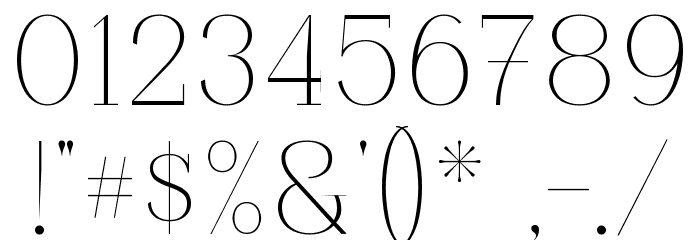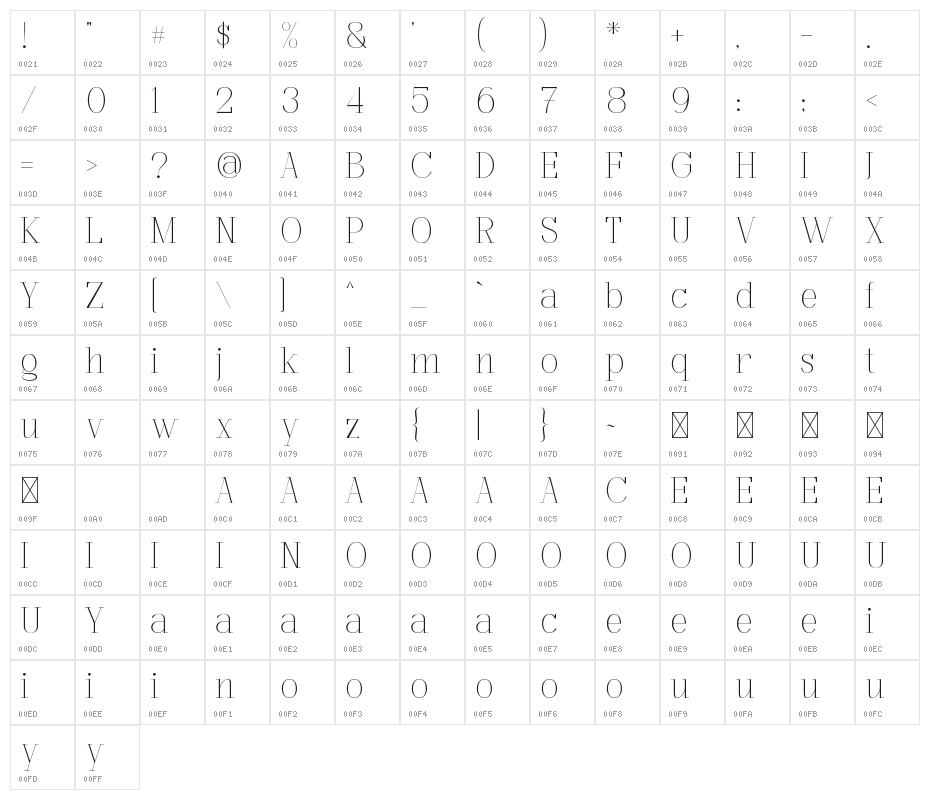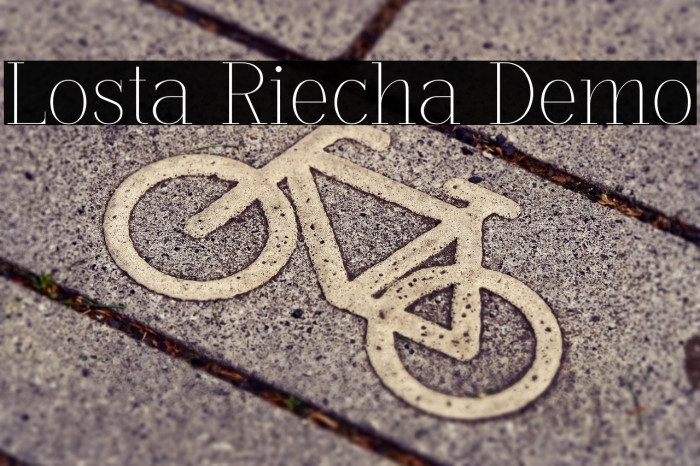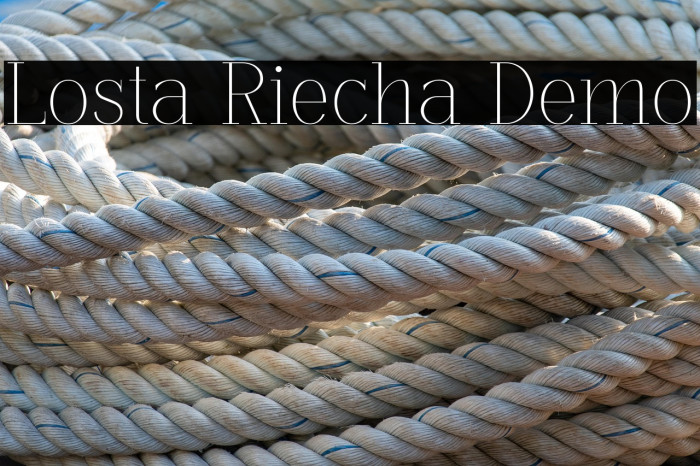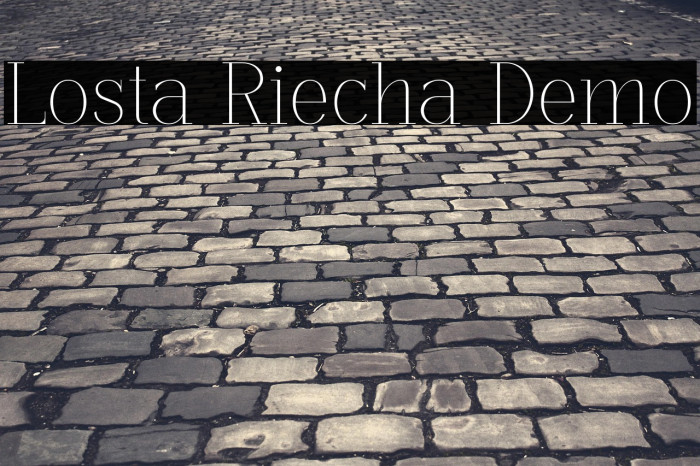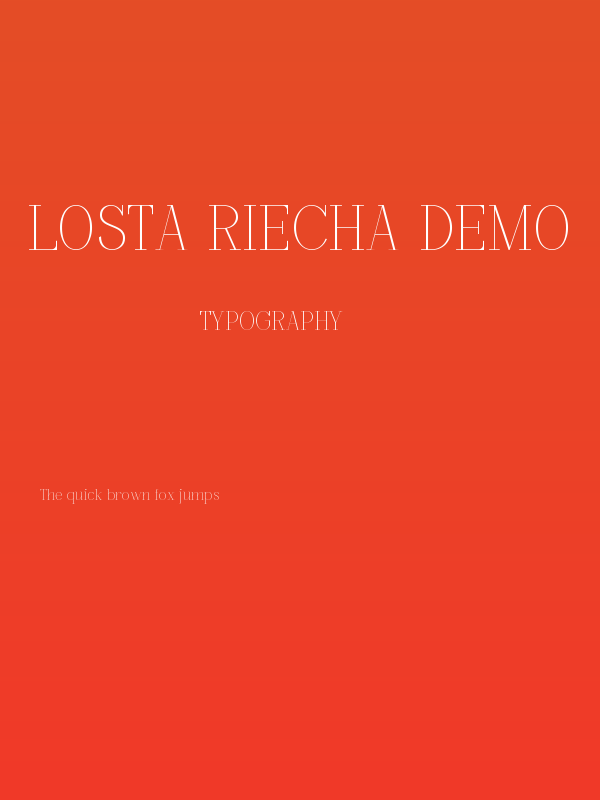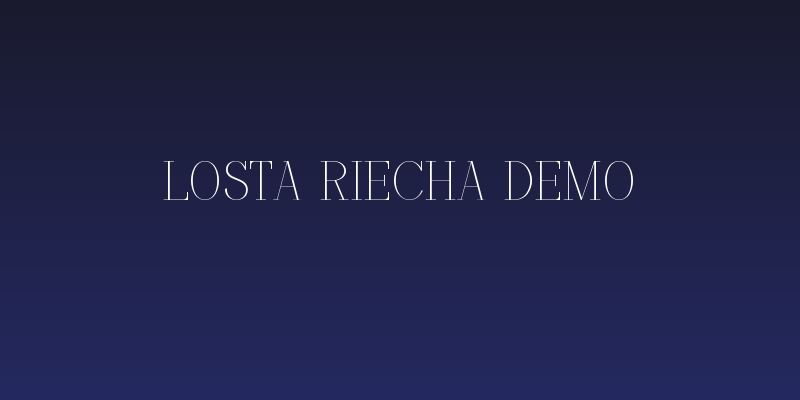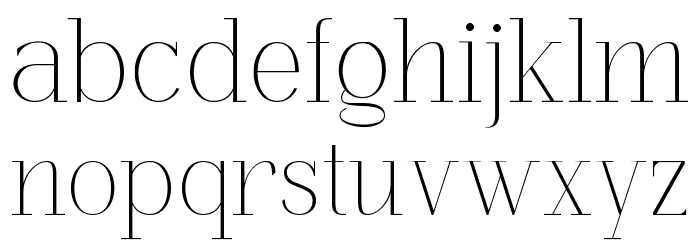
Losta Riecha Demo Font
Losta Riecha Demo Description
This elegant typeface features a refined and sophisticated design, characterized by its thin, elongated letterforms and high contrast between thick and thin strokes. The uppercase letters exhibit a classic and timeless appeal, while the lowercase letters maintain a consistent and harmonious flow. The numerals are designed with a similar elegance, ensuring readability and style. The special characters complement the overall aesthetic, adding versatility to the font. Its delicate and graceful appearance makes it suitable for high-end branding and editorial design.
| Proposed Projects | Ideal for luxury branding, editorial design, wedding invitations, and high-end product packaging. |